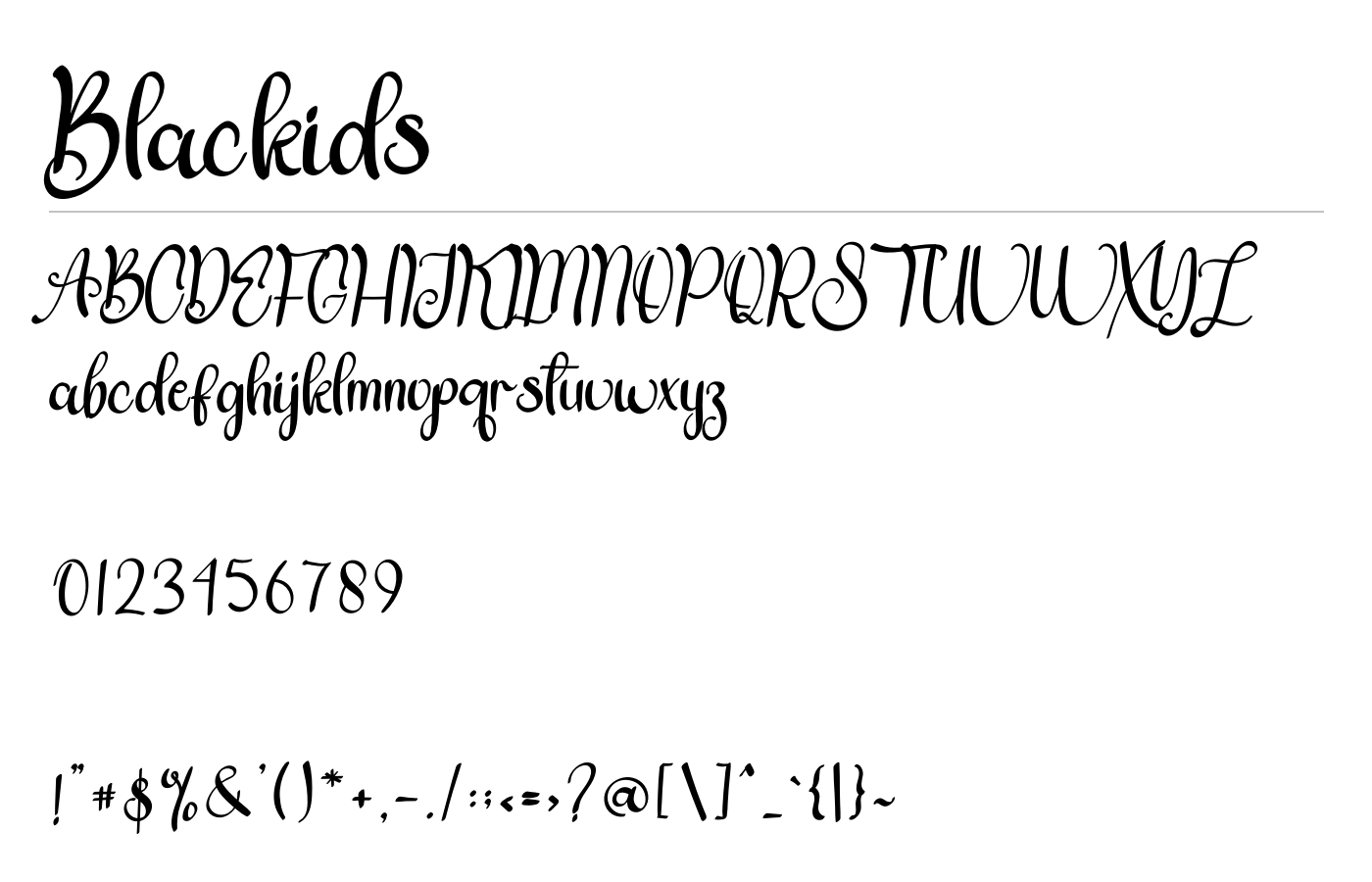
Blackids is a decorative script font with elegant, flowing letterforms that combine a playful yet refined feel. Its smooth, connected strokes and unique loops make it ideal for creative branding, invitations, and headlines where a stylish, personal touch is desired. This font works best in designs that want to convey charm and sophistication with a handcrafted vibe.
Blackids Font